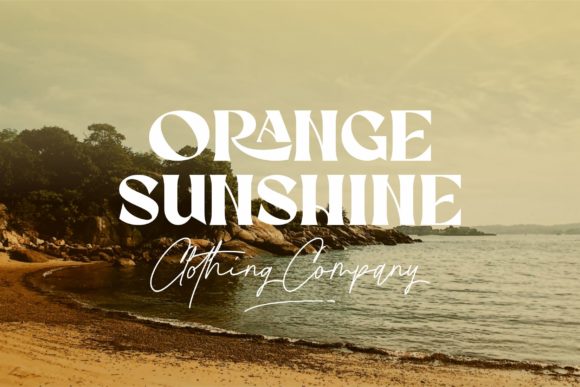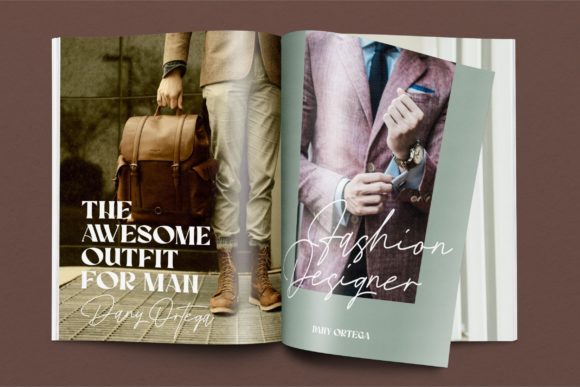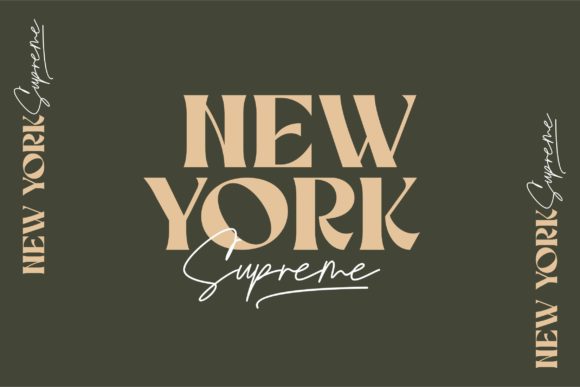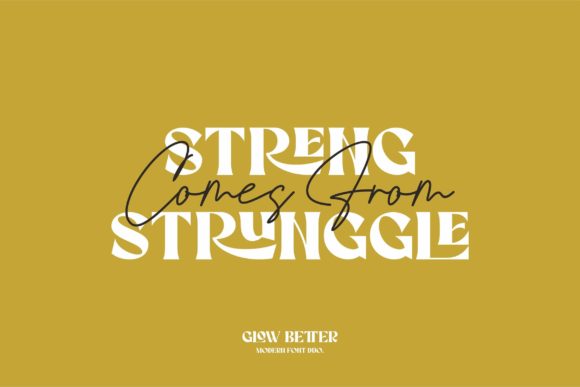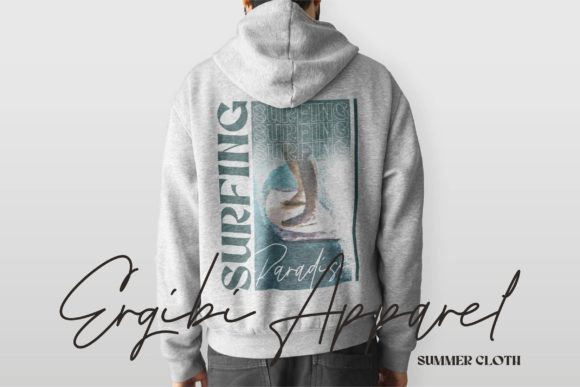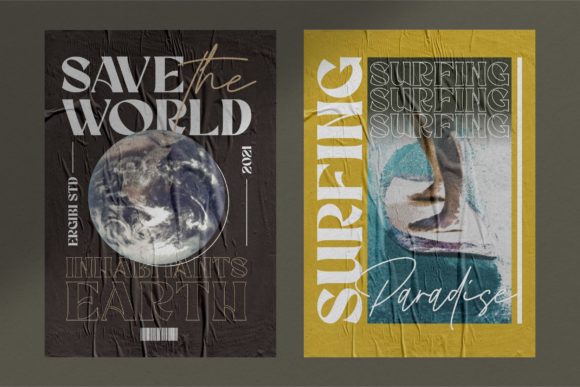
Introducing Glow Better Font: Elevate Your Designs with Style and Nostalgia
Are you tired of using the same old fonts for your design projects? Look no further than Glow Better Font, a stunning duo font that combines a serif and script font to give your headlines and logotype projects a stylish touch. Crafted with care and attention to detail, Glow Better is the perfect addition to any designer’s toolkit.
A Strong, Confident, and Dynamic Font
Glow Better Font reads as strong, confident, and dynamic, making it perfect for designers who want to make a statement with their work. The serif font provides a solid foundation, while the script font adds a touch of elegance and sophistication. Whether you’re working on a logo, headline, or any other design project, Glow Better Font is sure to impress.
Add a Touch of Nostalgia to Your Designs
One of the standout features of Glow Better Font is its ability to add tons of nostalgic character to your designs. The font’s classic feel and vintage vibe make it perfect for designers who want to create a retro or vintage look. Whether you’re working on a packaging design, poster, or advertisement, Glow Better Font is sure to bring a touch of nostalgia to your project.
Glow Better Font is PUA (Private Use Area) encoded, which means that you can access all of the glyphs and swashes with ease. This feature makes it easy to customize your designs and add unique touches to your work. With PUA encoding, you can access a wide range of characters, including ligatures, alternates, and ornaments, giving you endless possibilities for creative expression.
Glow Better Font is perfect for designers and crafters who want to add a touch of style and sophistication to their work. Whether you’re a professional designer or a hobbyist, this font is sure to become a favorite in your collection. With its versatility and ease of use, Glow Better Font is perfect for a wide range of design projects, including:
- Headlines and posters
- Packaging design
- Advertisements
- Stationery and invitations
Why Choose Glow Better Font?
So why choose Glow Better Font over other fonts on the market? Here are just a few reasons:
- Unique and stylish design: Glow Better Font features a unique and stylish design that is sure to make your designs stand out.
- Versatility: This font is perfect for a wide range of design projects, from logos and branding to headlines and posters.
- Easy to use: With PUA encoding, accessing glyphs and swashes is easy, making it simple to customize your designs.
- Nostalgic character: Glow Better Font adds a touch of nostalgia to your designs, making it perfect for retro or vintage-inspired projects.
Get Ready to Glow Up Your Designs!
In conclusion, Glow Better Font is a must-have for any designer or crafter looking to add a touch of style and sophistication to their work. With its unique design, versatility, and ease of use, this font is sure to impress. So don’t miss out on the opportunity to elevate your designs with Glow Better Font. Download it today and start creating!